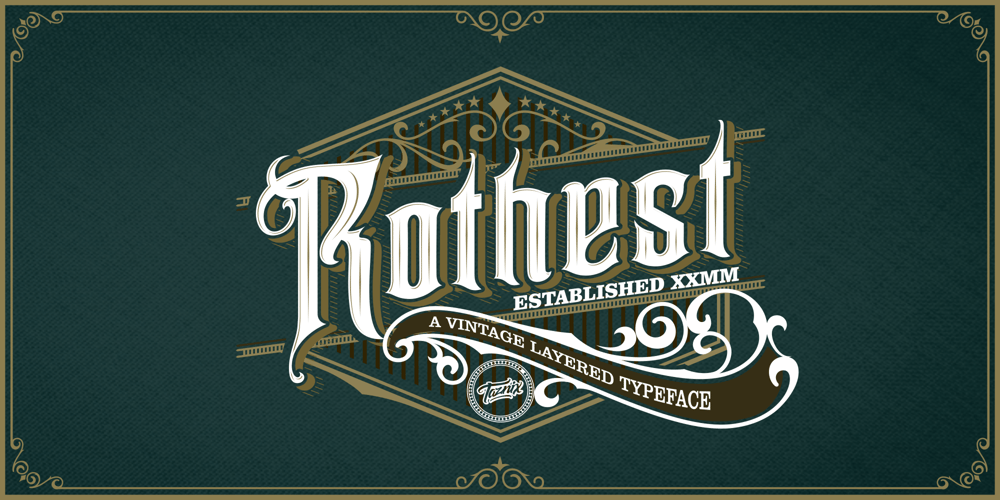
Rothest Font Family was designed by Ricky Hartasni and published by Taznix Creative. Rothest contains 5 styles and family package options. Rothest is an elegant and classic blackletter font. Fall in love with its incredibly versatile style and use it to create spectacular designs!Rothest Typeface includes a full set of character A-Z, as well as multi-lingual support, currency figures, numerals, and punctuation.What’s Included : Standard glyphs Ligature Works on PC & Mac Simple installations Accessible in the Adobe Illustrator, Adobe Photoshop, Adobe InDesign, even work on Microsoft Word. PUA Encoded Characters – Fully accessible without additional design software. Fonts include multilingual support for; ä ö ü Ä Ö Ü ß ¿ ¡ Hope you enjoy with our font!Taznix